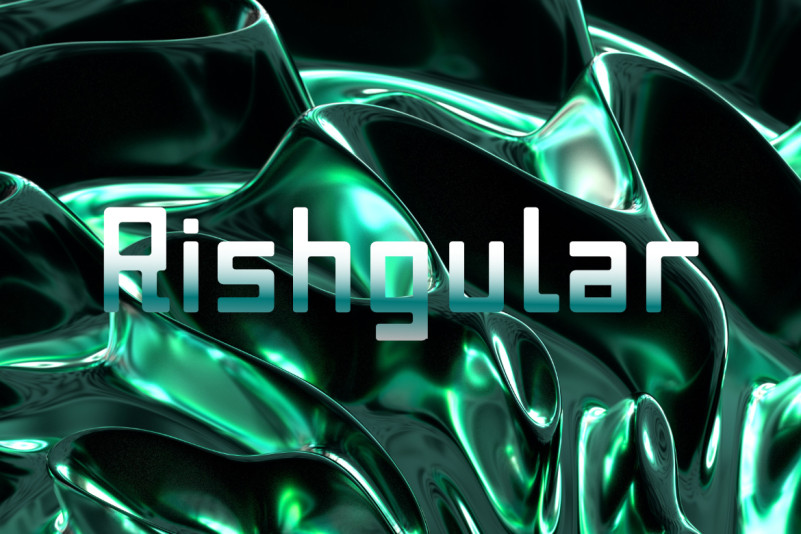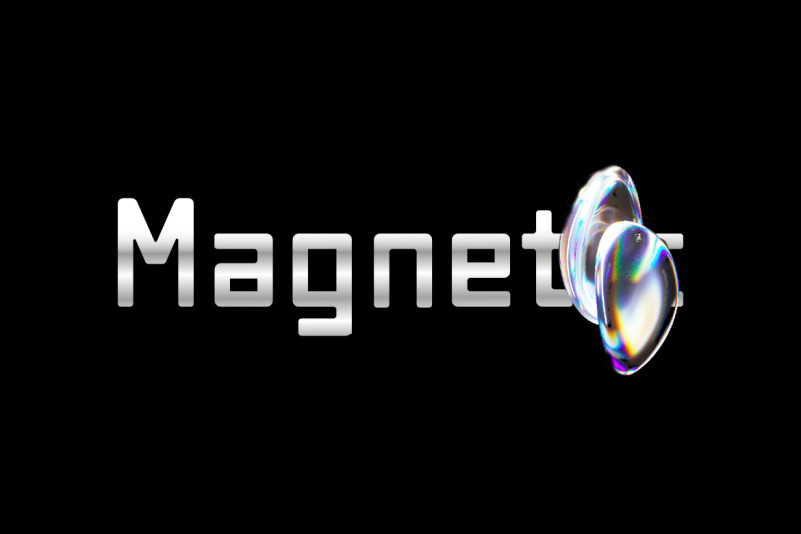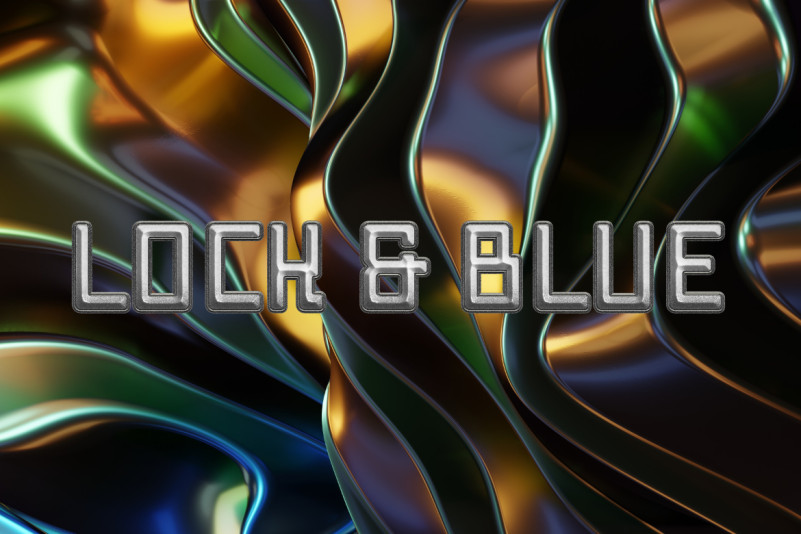
Rishgular Font
Rishgular Display Font, techno display, powerful sports font, great for headlines, logos, typography, clothing, magazines, brochures, packaging and more for your design needs, make your design more modern and professional.